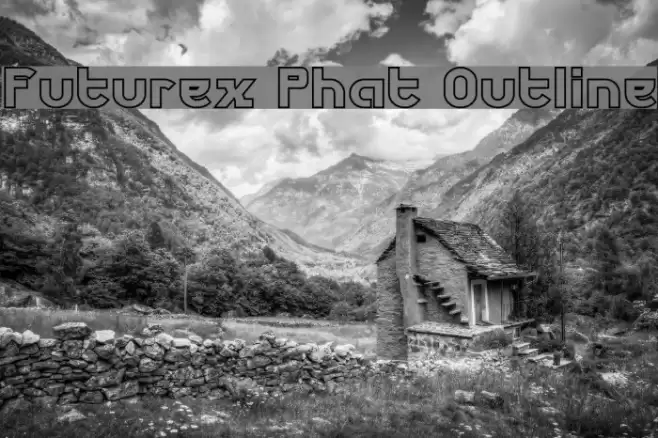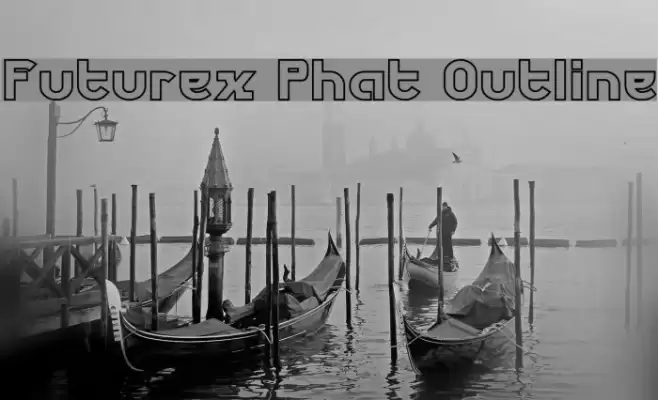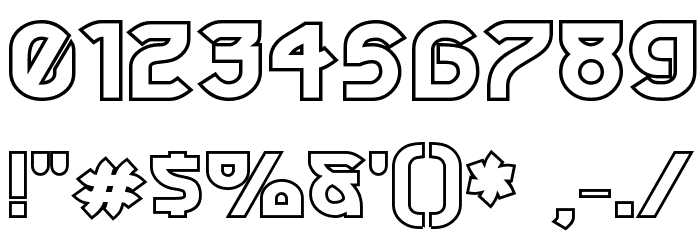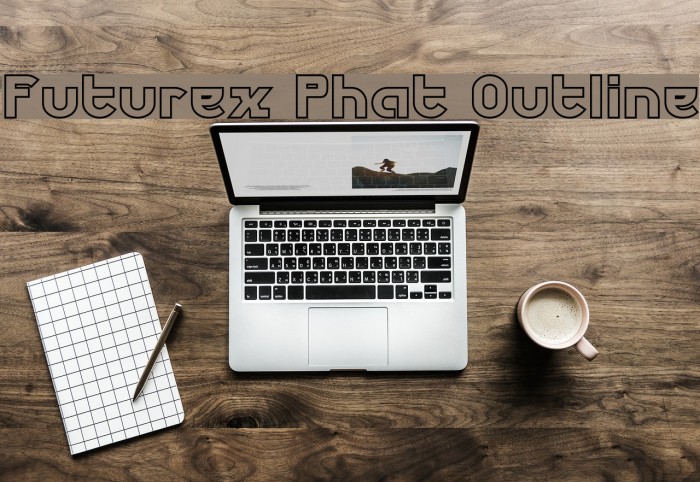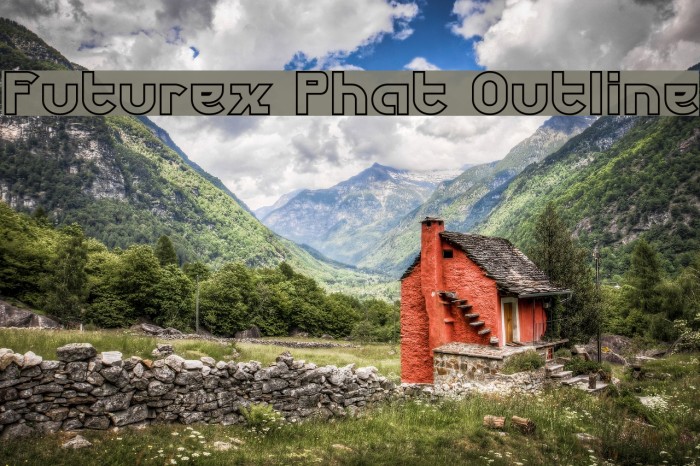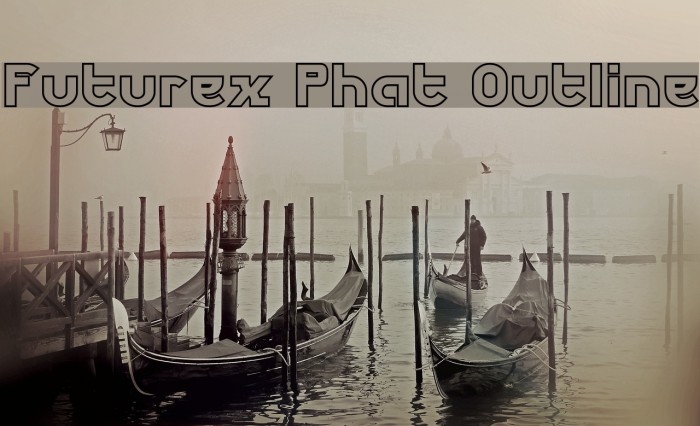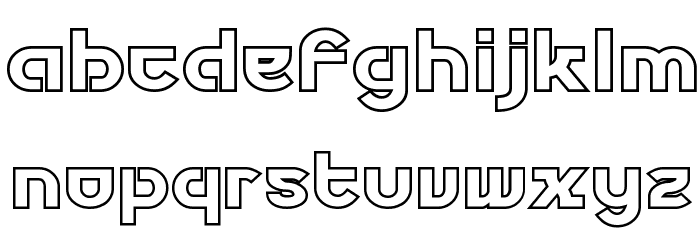
Futurex Phat Outline Font
Futurex Phat Outline Description
This font features a bold, outlined style that emphasizes geometric shapes and clean lines. The uppercase and lowercase letters maintain a consistent width, creating a uniform appearance. The characters are designed with a futuristic aesthetic, incorporating sharp angles and smooth curves. The numbers and special characters follow the same design principles, ensuring a cohesive look across all elements. This font's outline style gives it a unique, eye-catching appearance, making it suitable for modern and creative projects.
A bold, outlined font with a futuristic and geometric design from Outline fonts.
- Proposed Projects: Ideal for branding, posters, headlines, and any project requiring a modern, standout typeface.